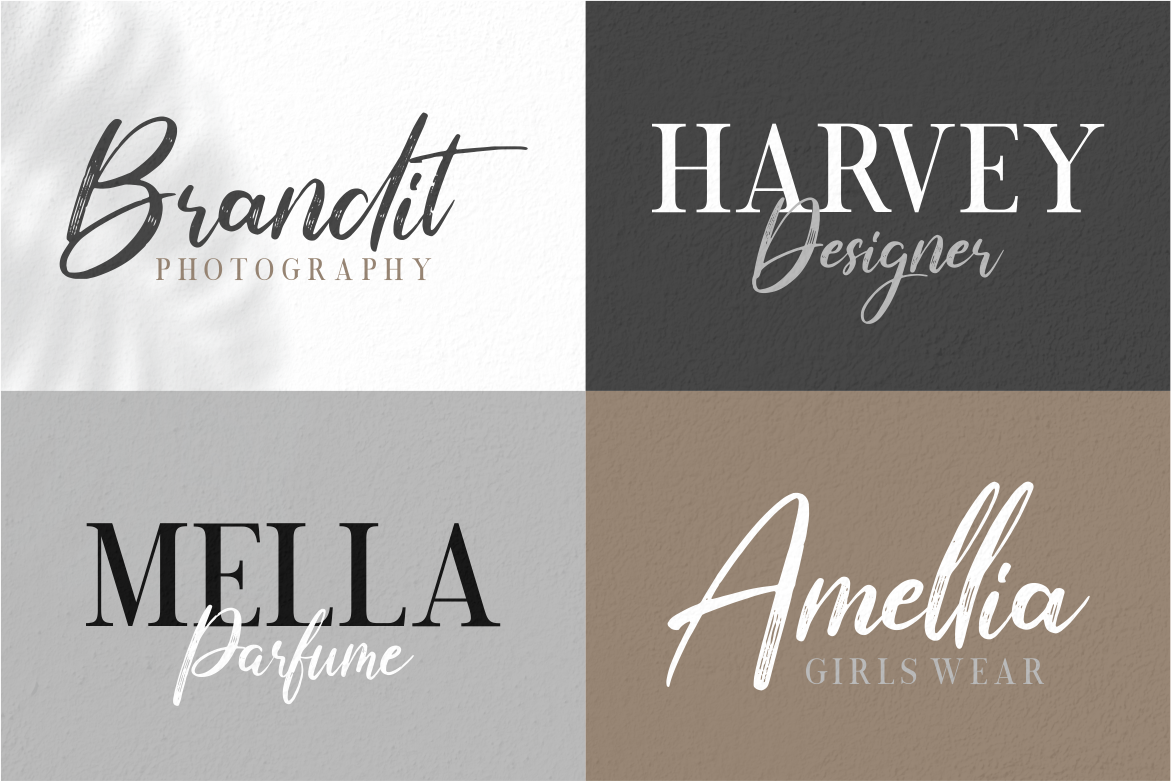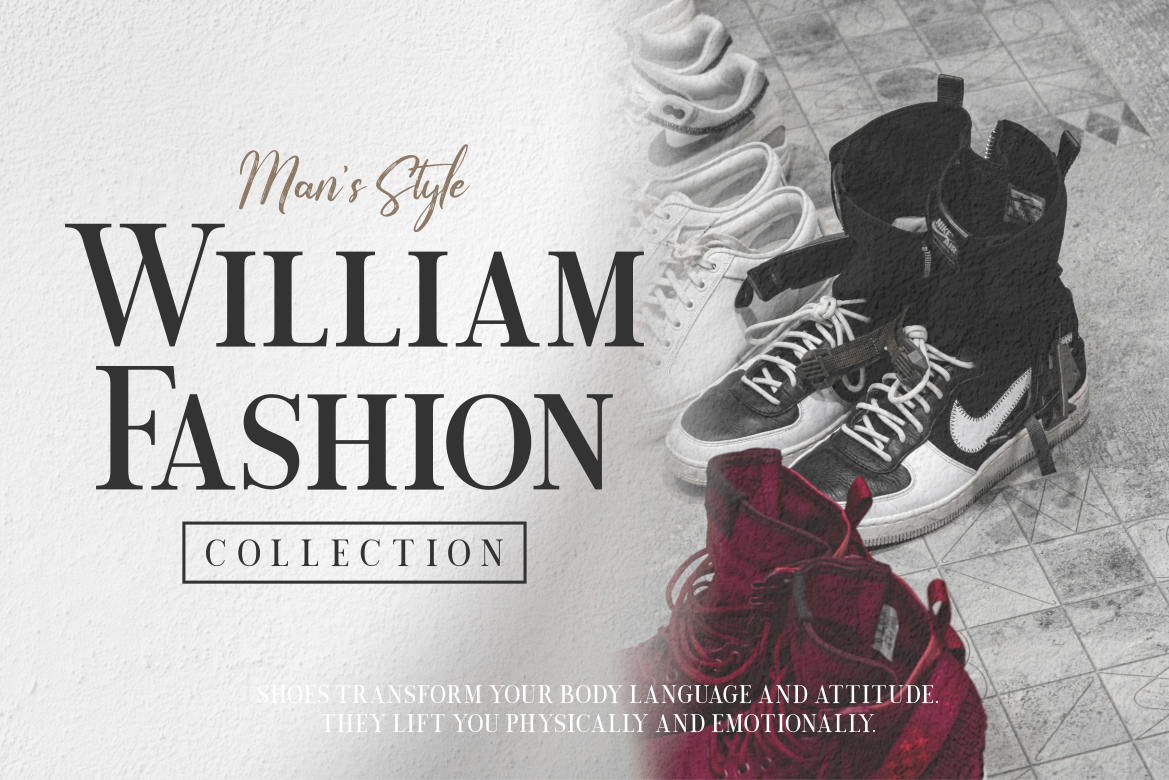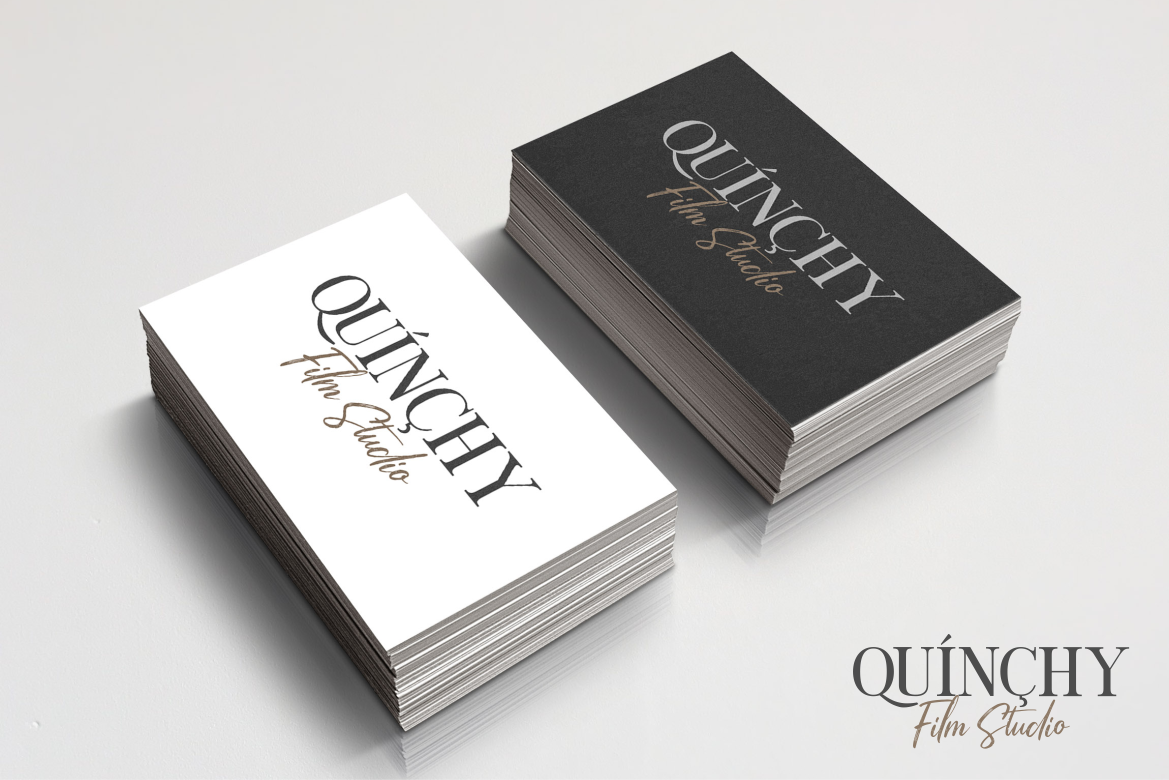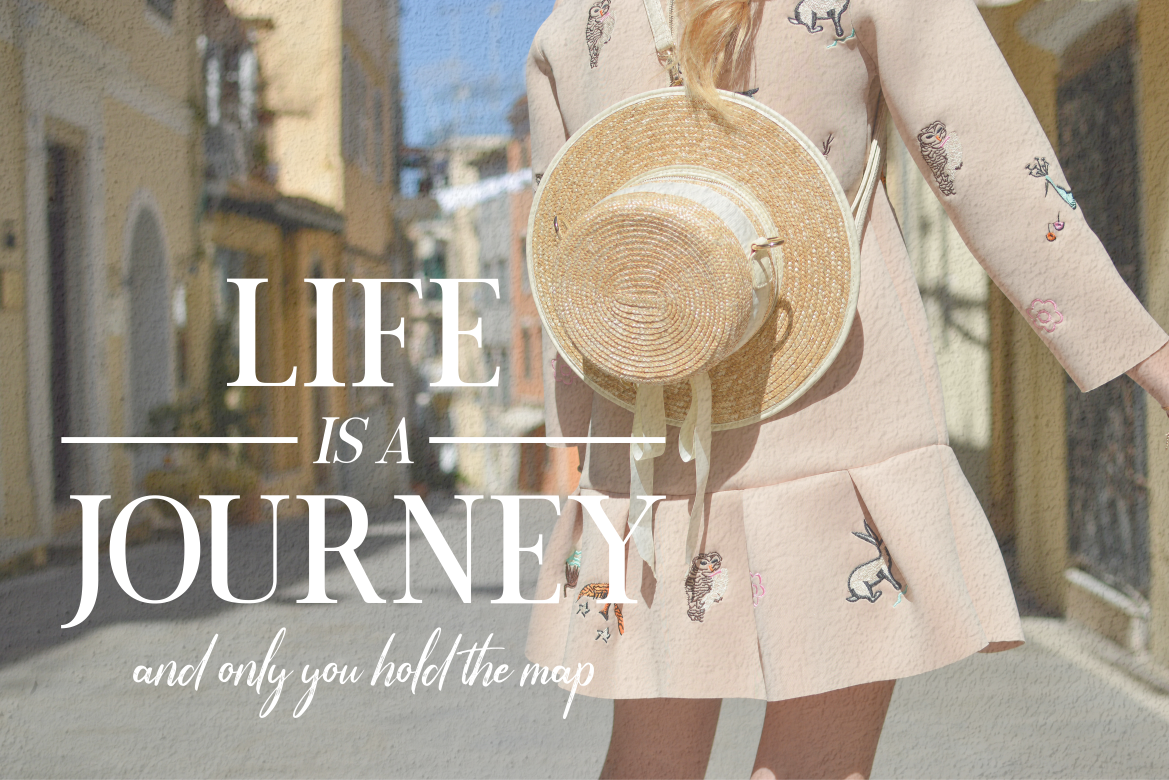
Chrono Sphere Free Font Duo
Chrono Sphere Free Font Duo is a beautiful font duo a classy, contemporary pair of script and serif fonts. This font is very good with additional alternatives like multilingual support and italic style for Chrono font to complement your needs. With texture make this font look natural, very suitable to make branding, magazine, fashion, quotes, logo, and other. This free typeface was designed by a talented Nur Kholis. If you like it don’t forget to check out the full version.